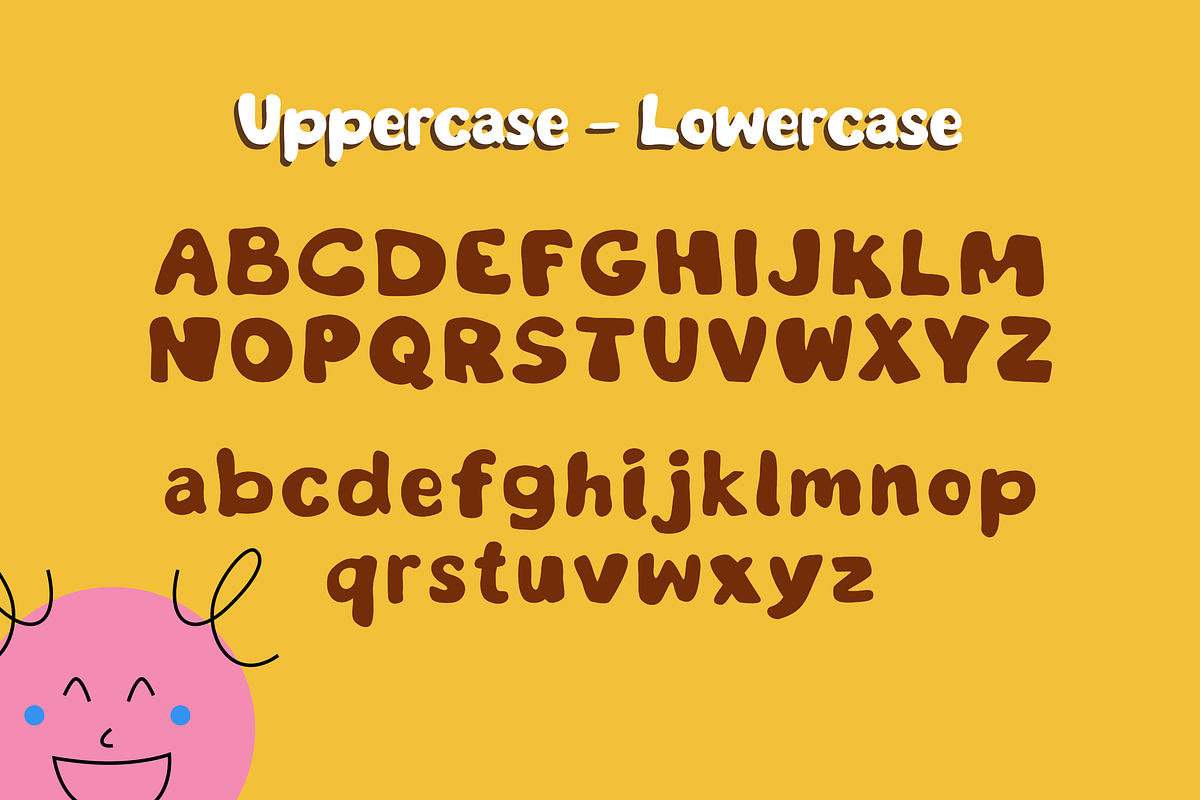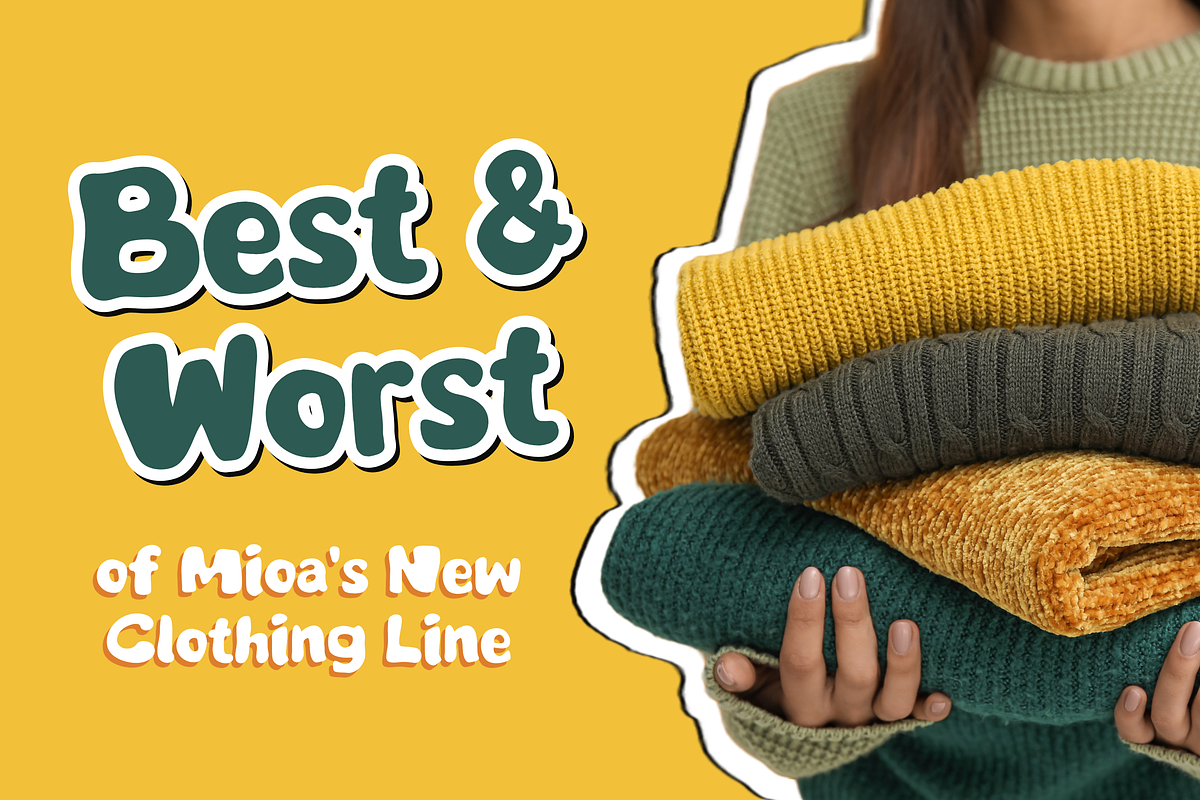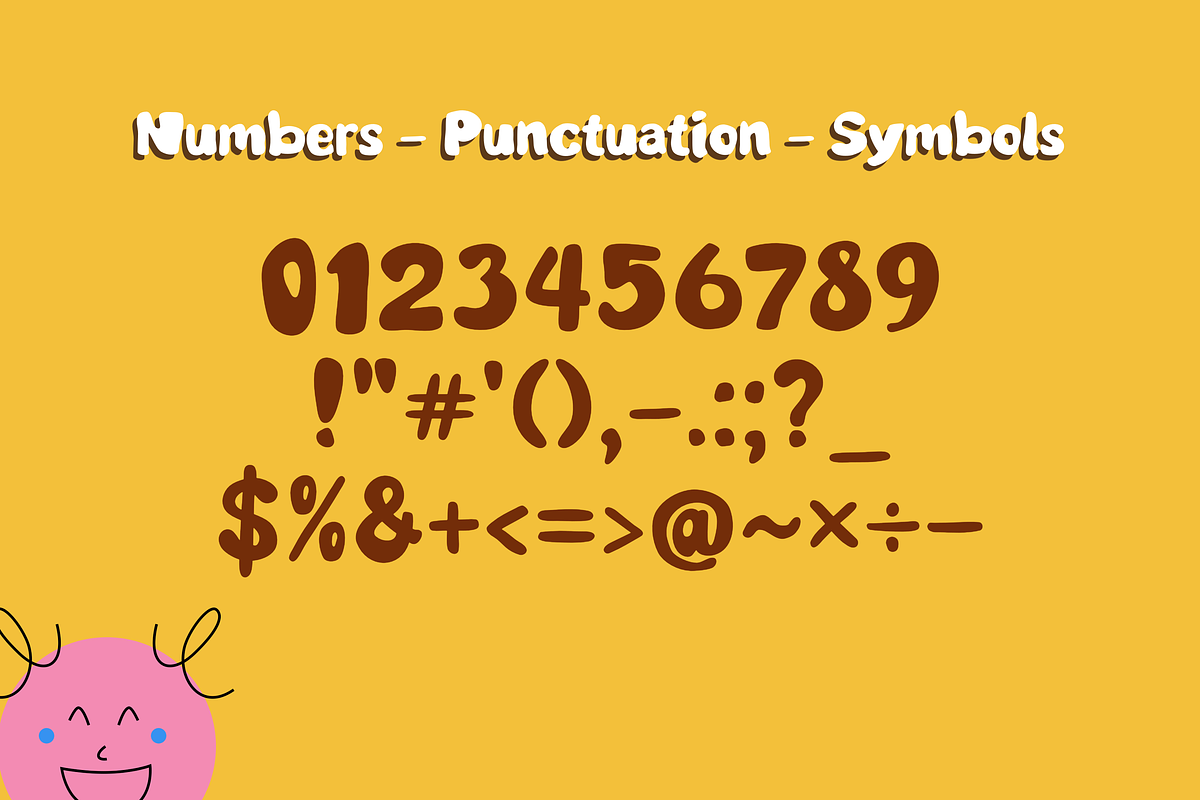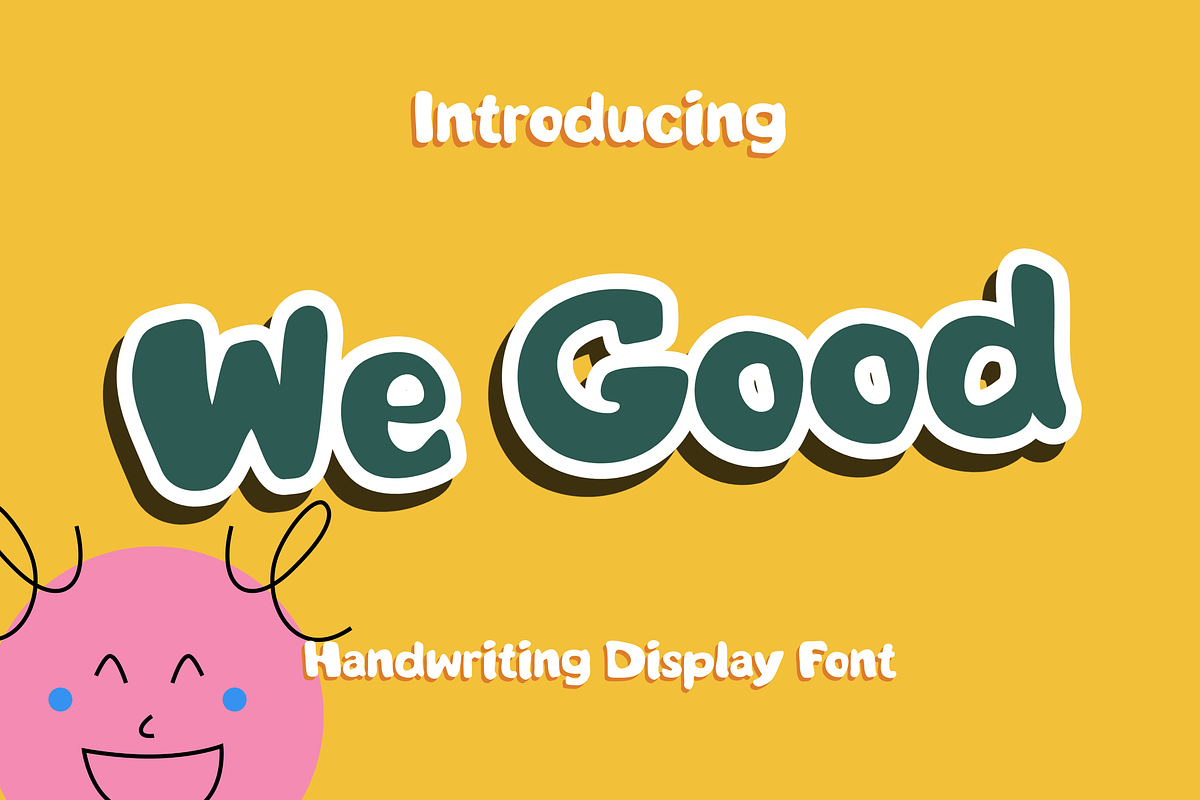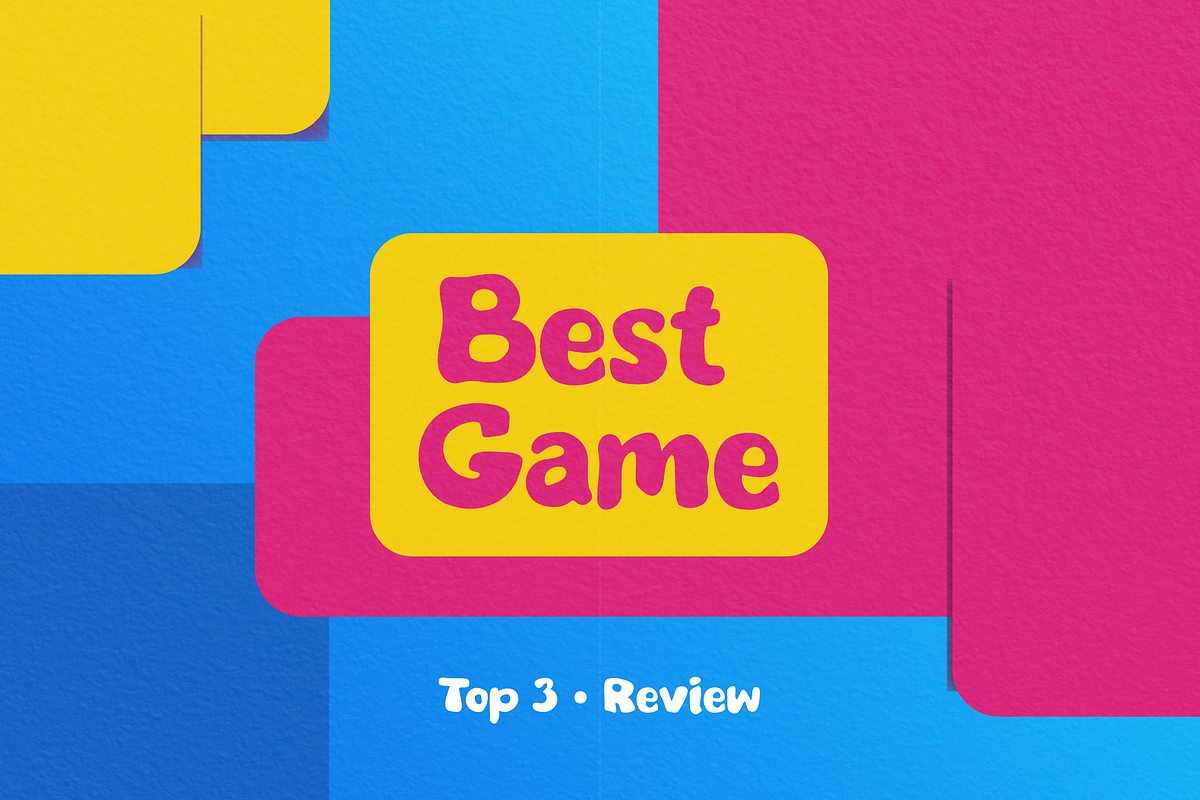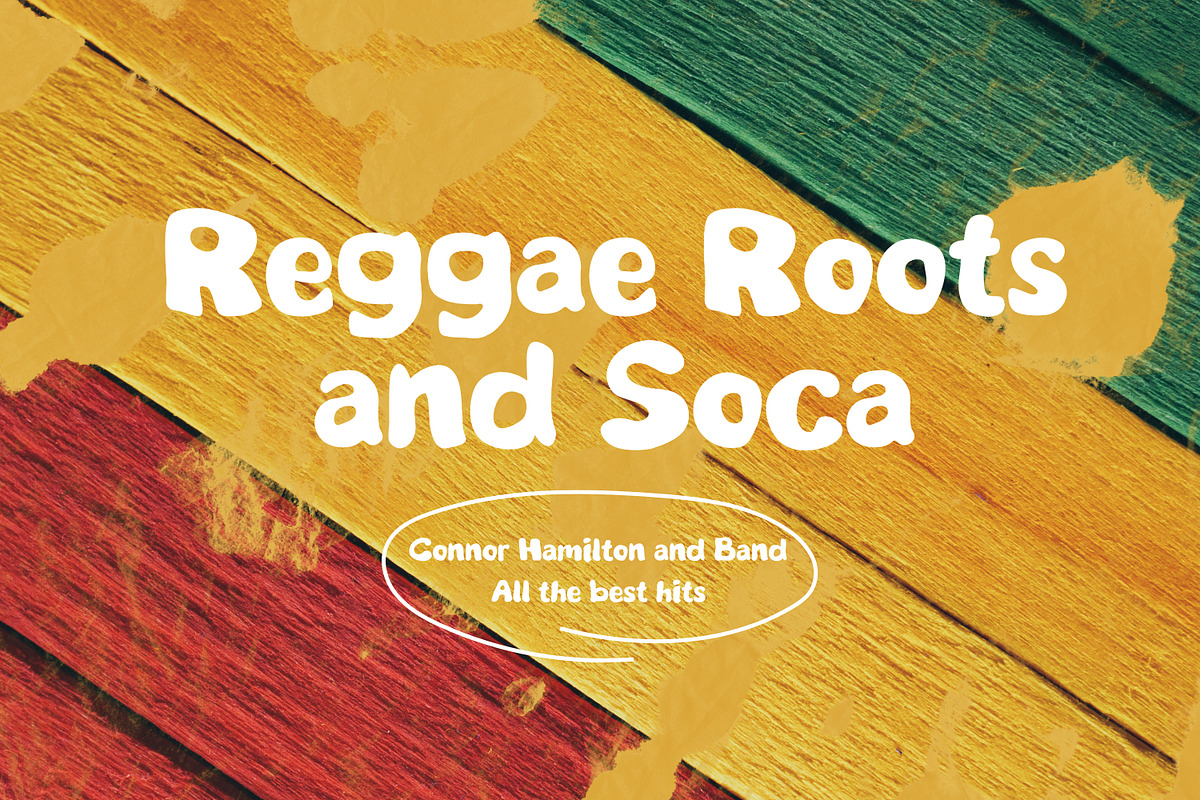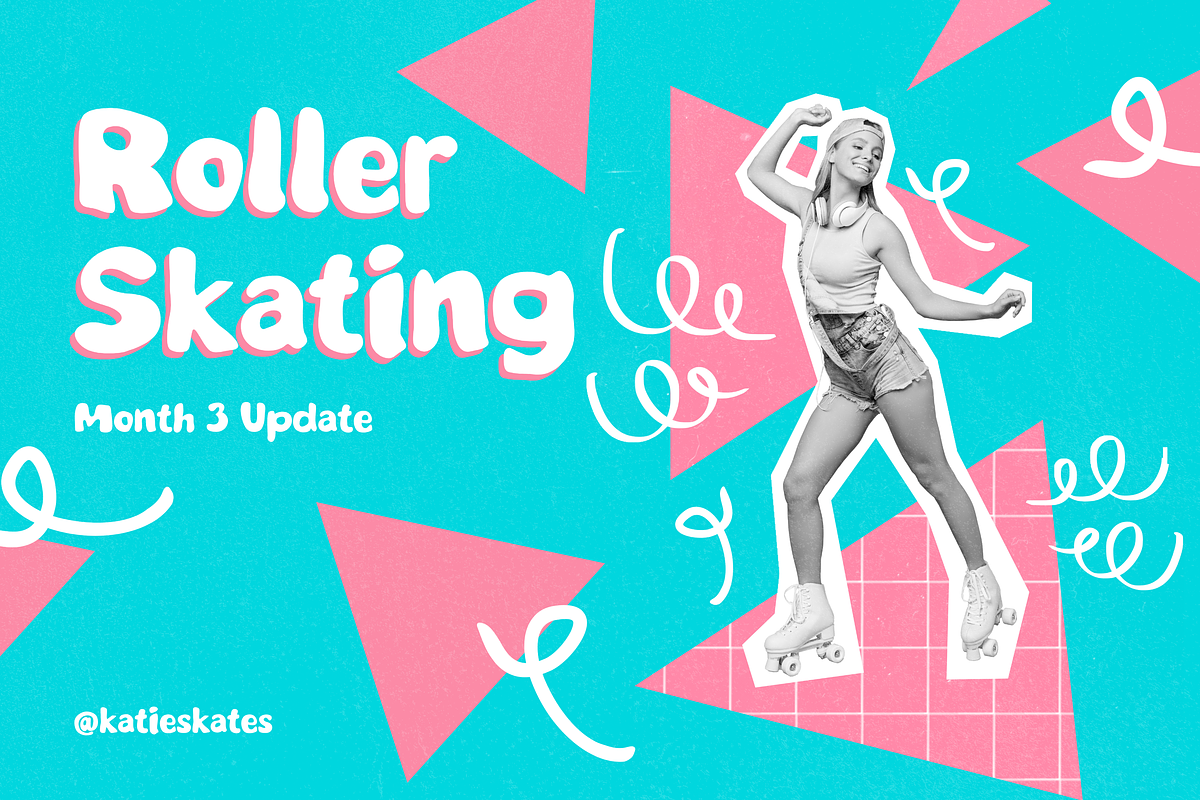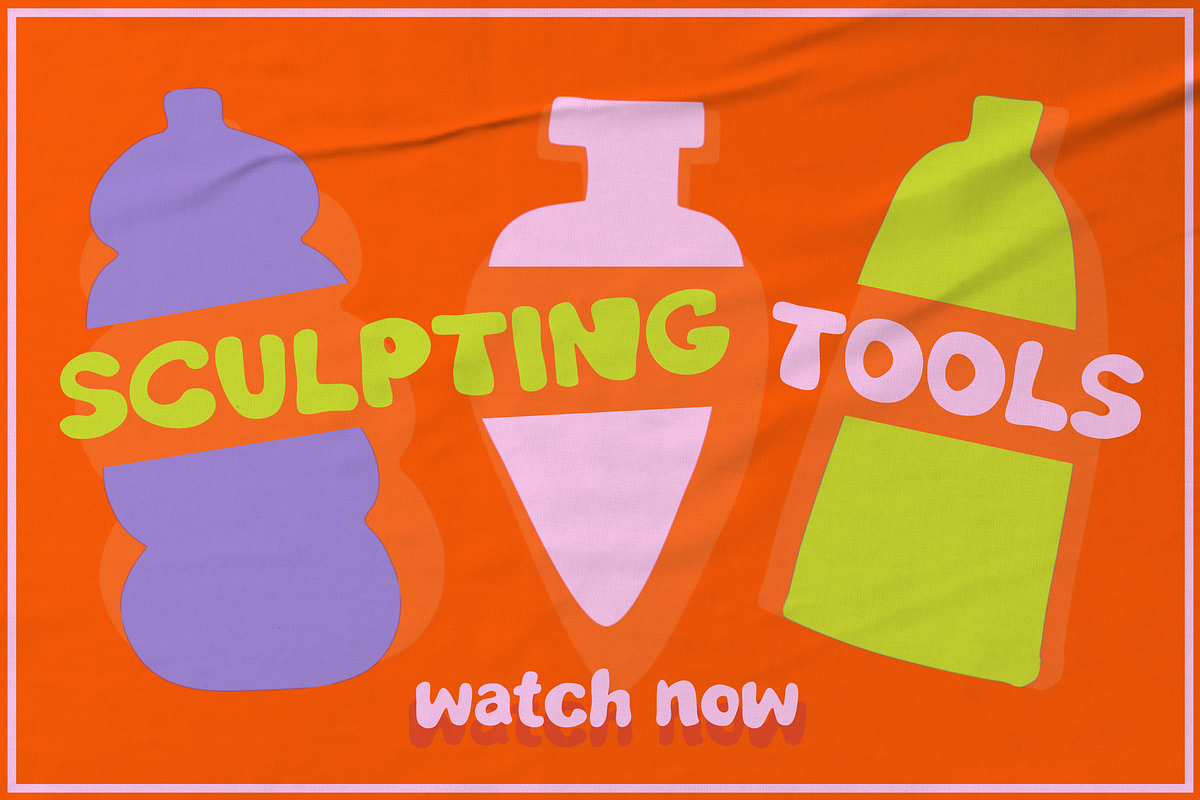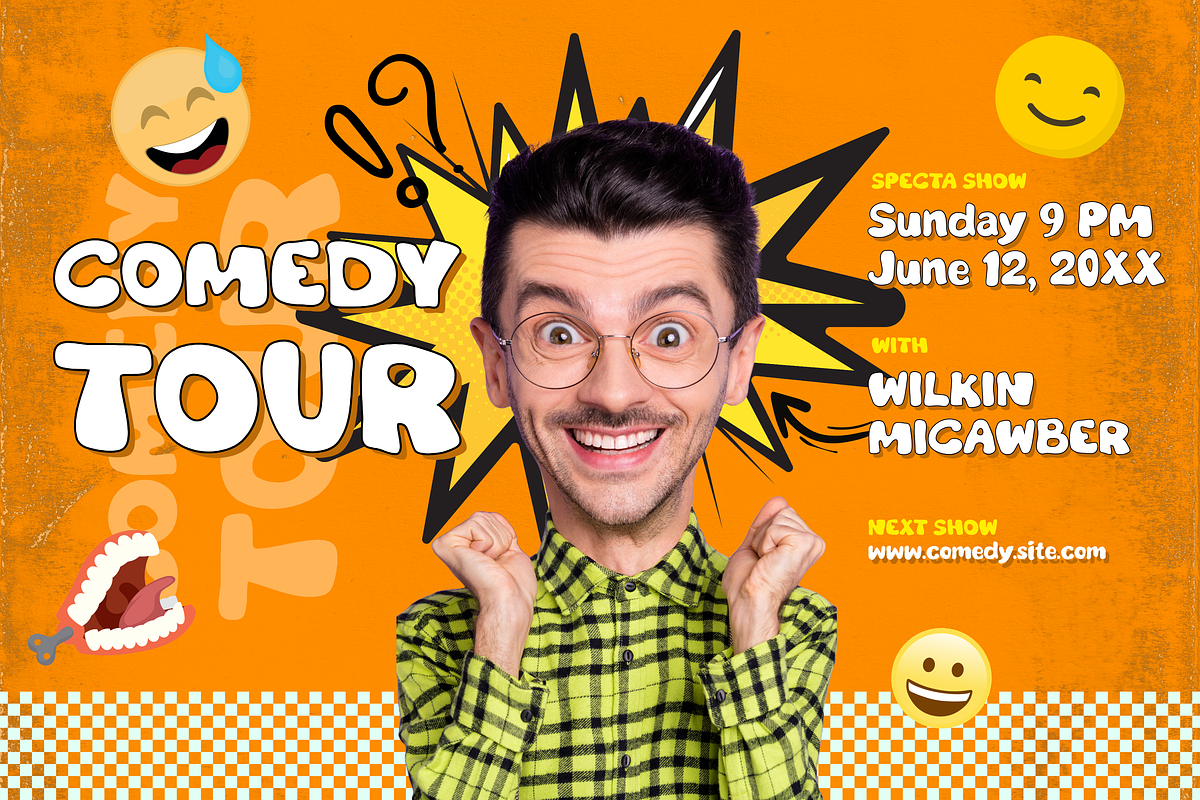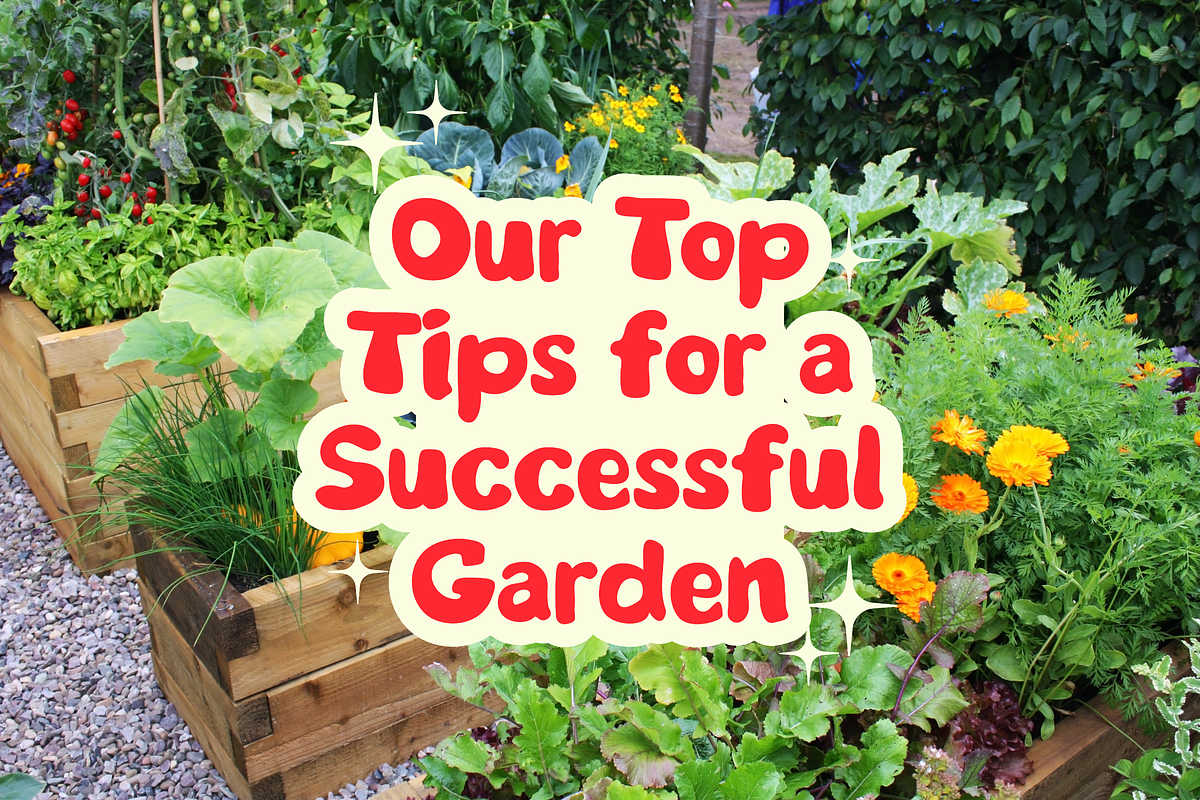
We Good - Playful Handwriting Font
We Good is a bold, chunky handwriting display font designed to bring pure joy and warmth to your creative projects. Featuring friendly, rounded letterforms and a playful rhythmic flow, this typeface perfectly delivers an authentic, organic, and happy handmade feel.
Its thick strokes and high legibility make it incredibly versatile for kid-friendly designs. We Good is the ultimate choice for whimsical product packaging, children’s book covers, school project titles, cute branding, sticker designs, and cheerful social media content.
Perfect For: Kids branding, toy packaging, bakery/cafe logos, greeting cards, merchandise, and YouTube thumbnails.
Standard Character Set (Uppercase & Lowercase)
Numbers, Punctuation & Symbols